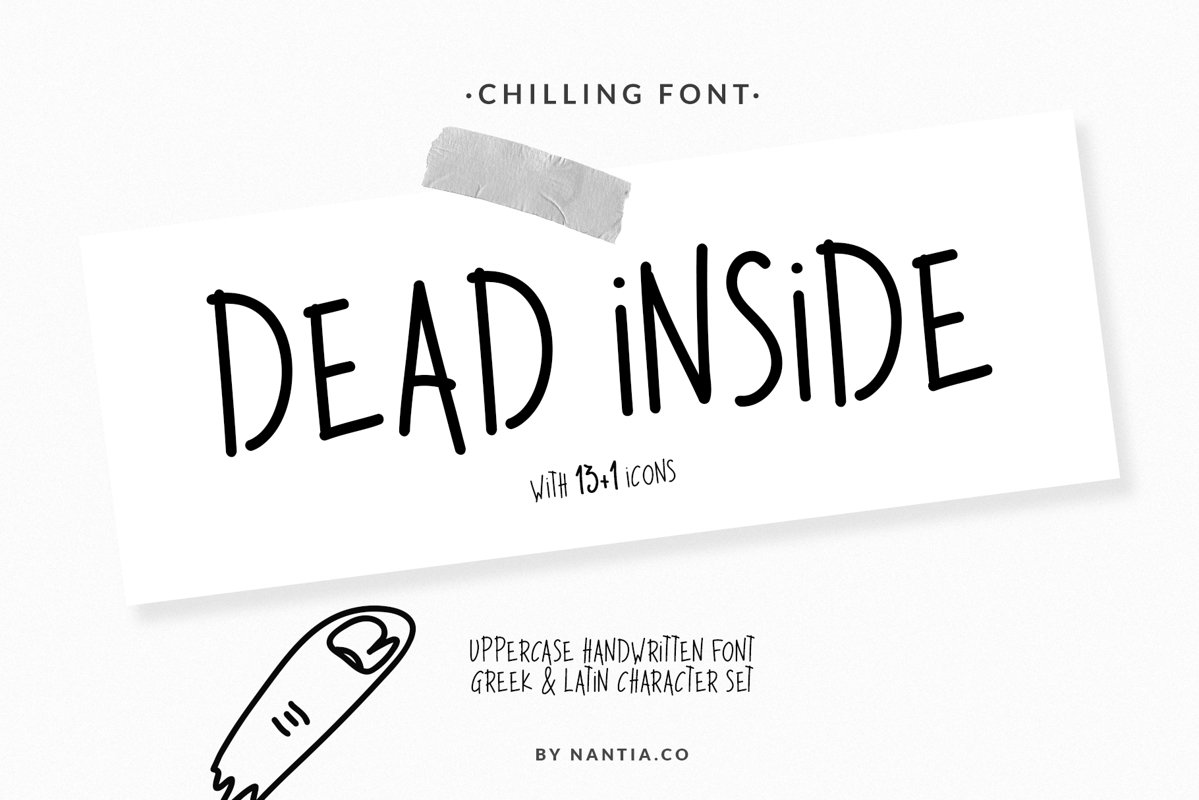
Dead Inside Chilling Font
Is it Halloween yet? Dead Inside Chilling Font is an adorable hand-made typeface with 13+1 chilling icons, for the upcoming Halloween.
• Latin Characters
• Greek Characters
• Numerals
• 13+1 icons in PUA